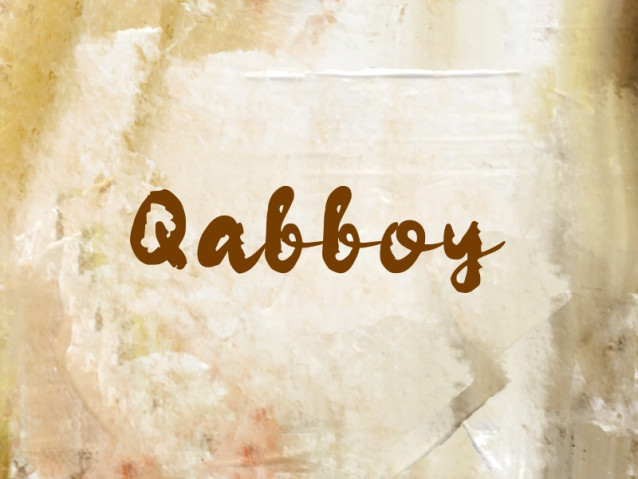
Qabboy Font
Qabboy Font is a simple and modern Brush font suitable for quotes, logos, headings, titles, and many more. Use it on any of your creative projects, and your designs will become outstanding!
Classification: Brush Fonts, Modern Fonts